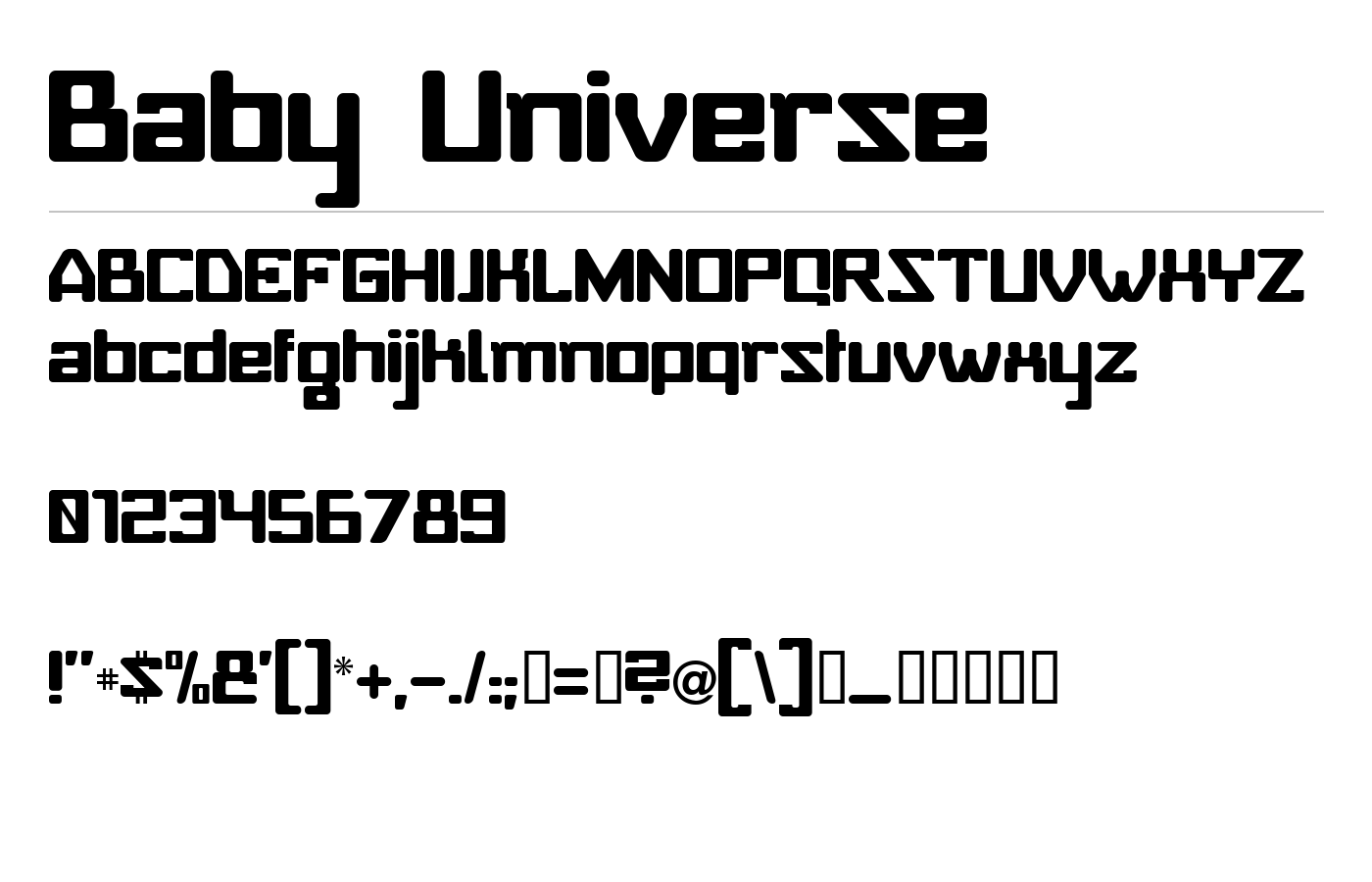
Baby Universe is a bold, geometric sans serif font with a futuristic and slightly playful vibe. Its squared shapes and consistent stroke weight give it a strong, tech-inspired presence, while the unique letterforms and minimal contrast add character, making it ideal for headlines, logos, and creative projects aiming for a modern yet approachable feel. This font works well in digital or print designs that want to stand out with a distinct, contemporary voice.
Baby Universe Font
About Baby Universe Font